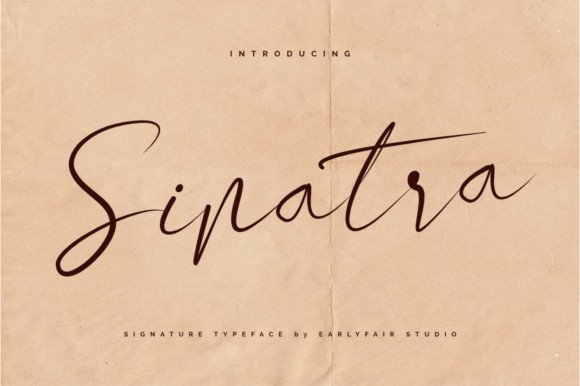
Sinatra Signature Font
Say hello to Sinatra Font. This is signature handwritten font with sophisticated and stylish handwritten, classy handwritten font that designed for minimalist design projects. Sinatra is incredibly elegant and authentic and contains smooth curves, making it a standout script! It’s perfect for fashion project, logo, branding, quote, posters, movie or cinema. Odishary packed with uppercase, lowercase, numeral & punctuation, accents (Multilingual Support). This font will handle your minimalist design project with simplicity.